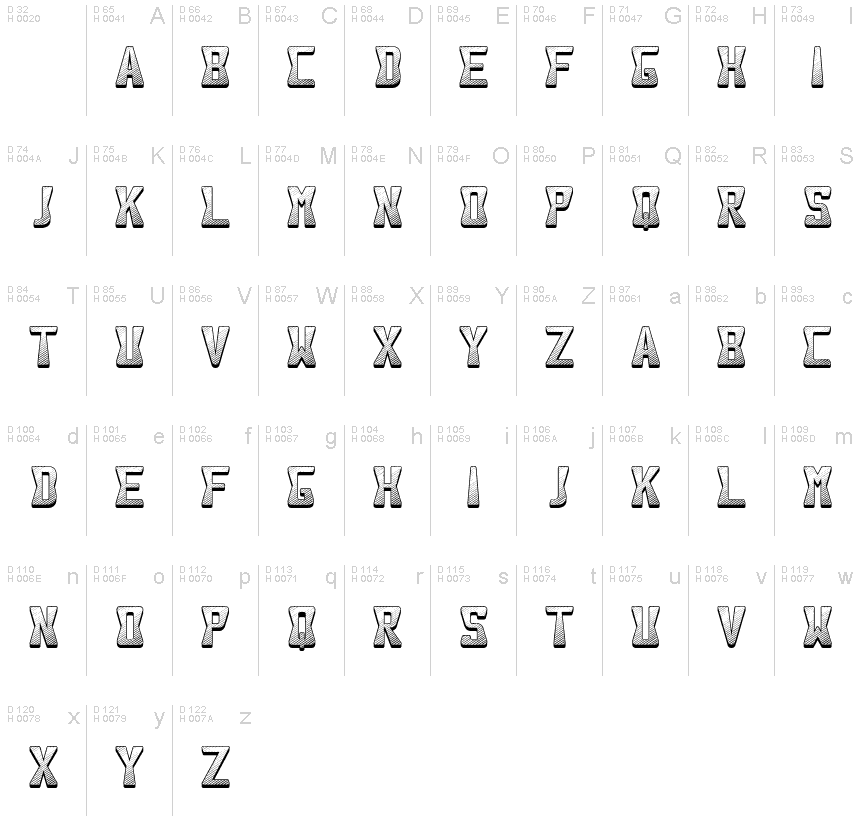
Pork Fest Regular
Pork Fest Regular is a fancy font with various styles created by Vladimir Nikolic. It's perfect for unique projects such as logos, posters, and headlines.